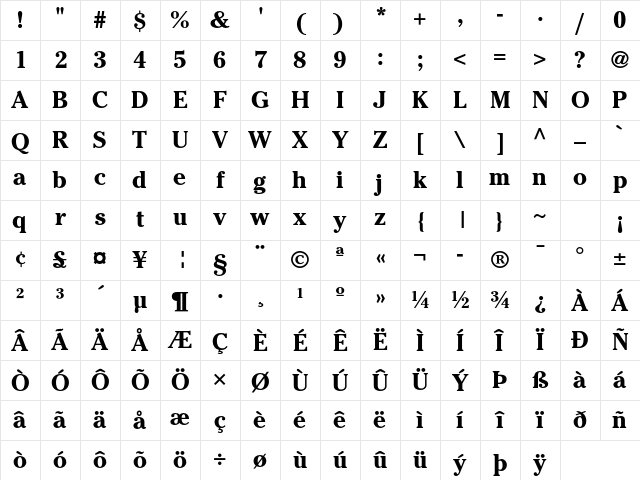
Complete ITC Cheltenham Std Bold glyph index. Displaying only characters natively supported by ITC Cheltenham Std Bold font.
ITC Cheltenham Std is a composed and adaptable typeface that performs quietly and consistently across a wide range of design contexts. Its bold stroke weight gives it real presence on the page.
Pro Tip: Use ITC Cheltenham Std in both headline and body roles to test its range before committing to a single application.